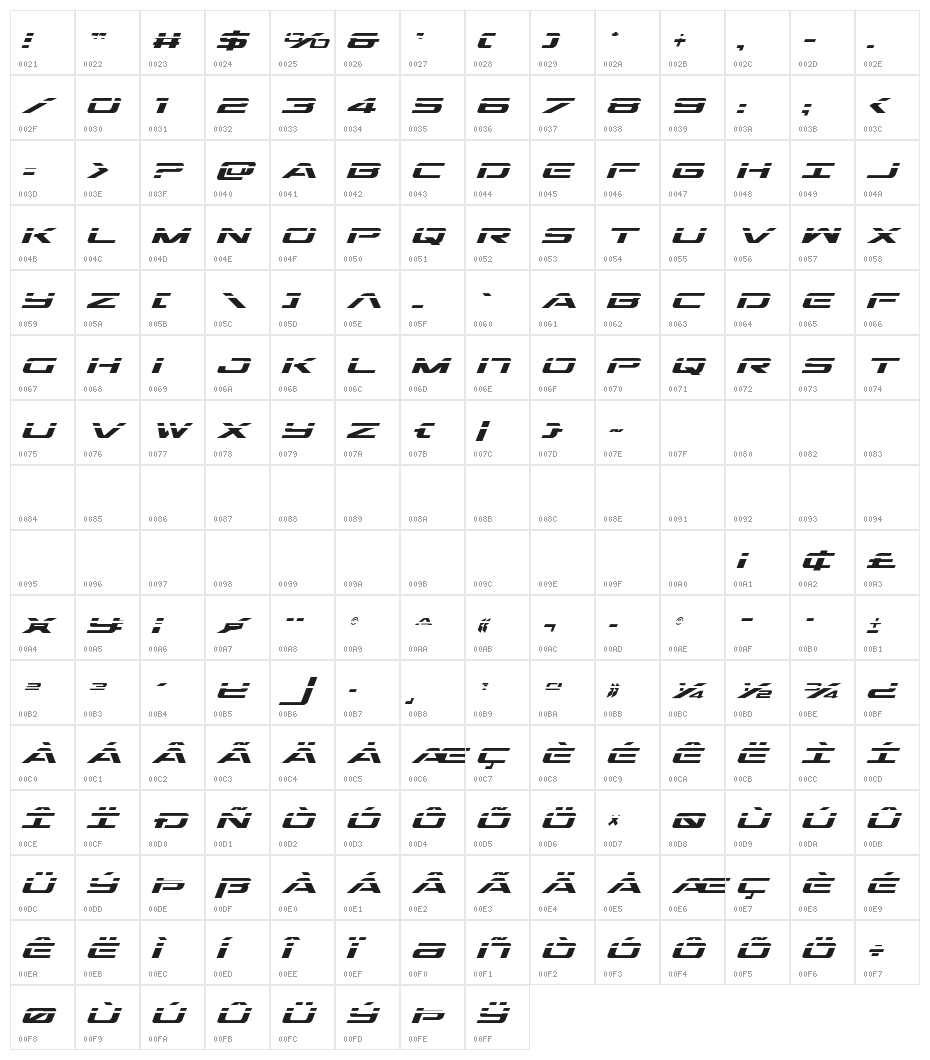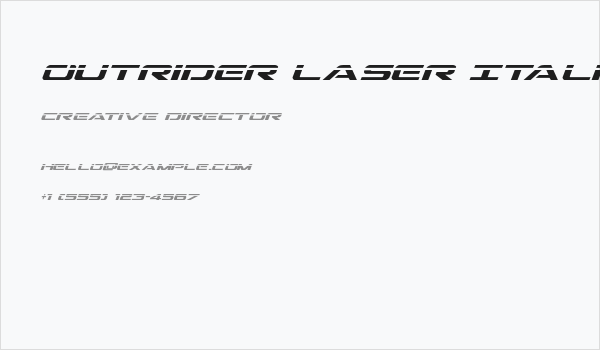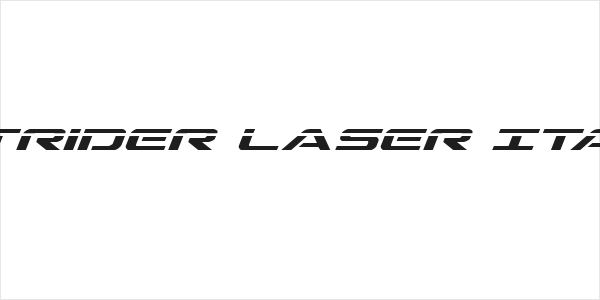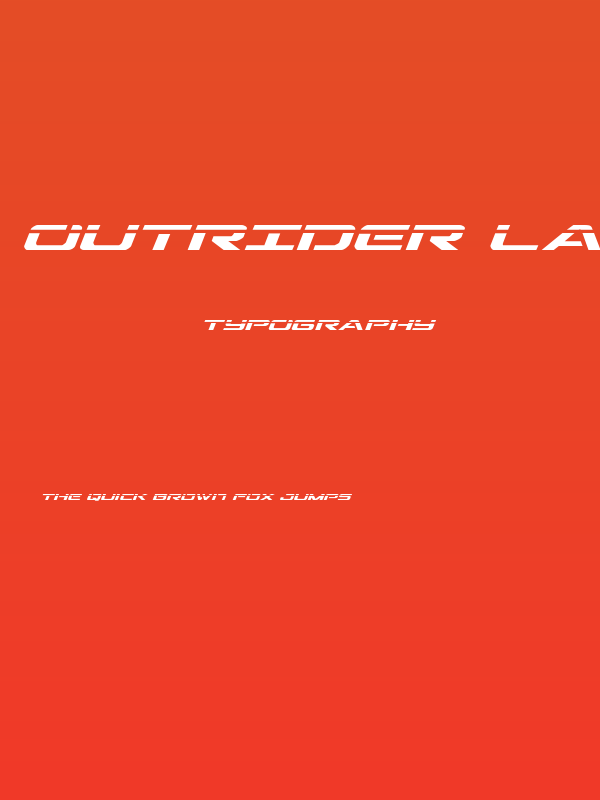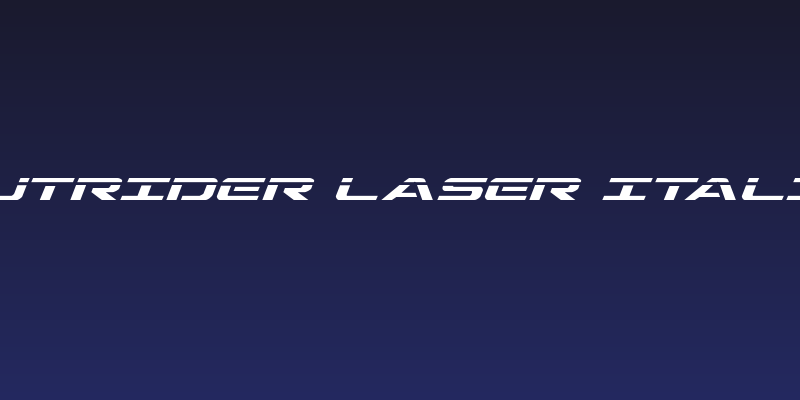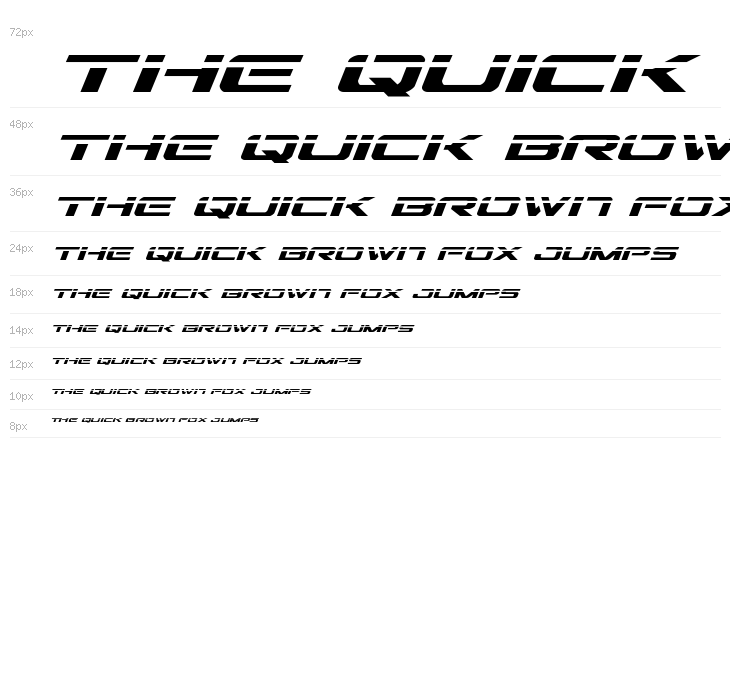
Outrider Laser Italic Font
Outrider Laser Italic Description
This font features a futuristic and dynamic design, characterized by sharp angles and a sleek, italicized form. The letters are bold and convey a sense of speed and modernity, making it ideal for projects that require a cutting-edge aesthetic. The uppercase and lowercase letters maintain a consistent style, with each character exhibiting a unique slant that enhances the overall energetic feel. The numbers and special characters are designed to match the boldness and angularity of the alphabet, ensuring a cohesive look across all text elements.
Proposed ProjectsIdeal for sci-fi themed projects, technology branding, video game titles, and modern advertising campaigns.